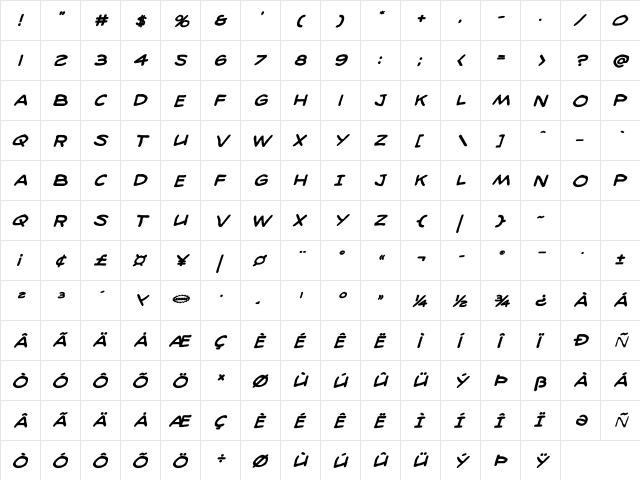
Design Context for 98 Bottles of Beer Bold Italic Typeface
98 Bottles of Beer Bold Italic takes a measured approach to typography — its balanced proportions and neutral character make it a reliable workhorse for both digital and print work. Its italic angle brings a sense of urgency and motion to the letterforms. Its bold stroke weight gives it real presence on the page.
Pro Tip: Use 98 Bottles of Beer Bold Italic for emphasis, pull quotes, and subheadings where its slanted energy can add rhythm to the layout.